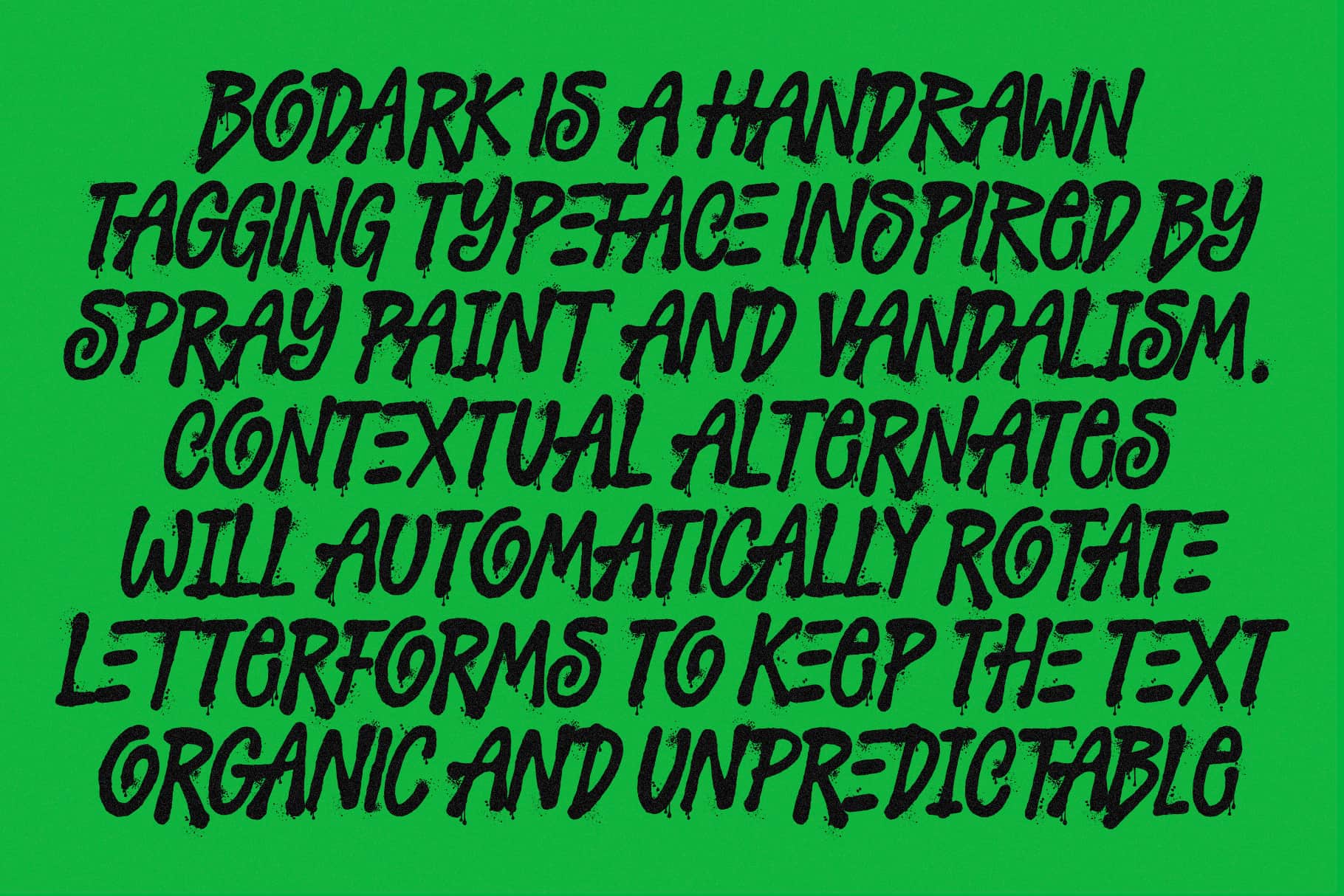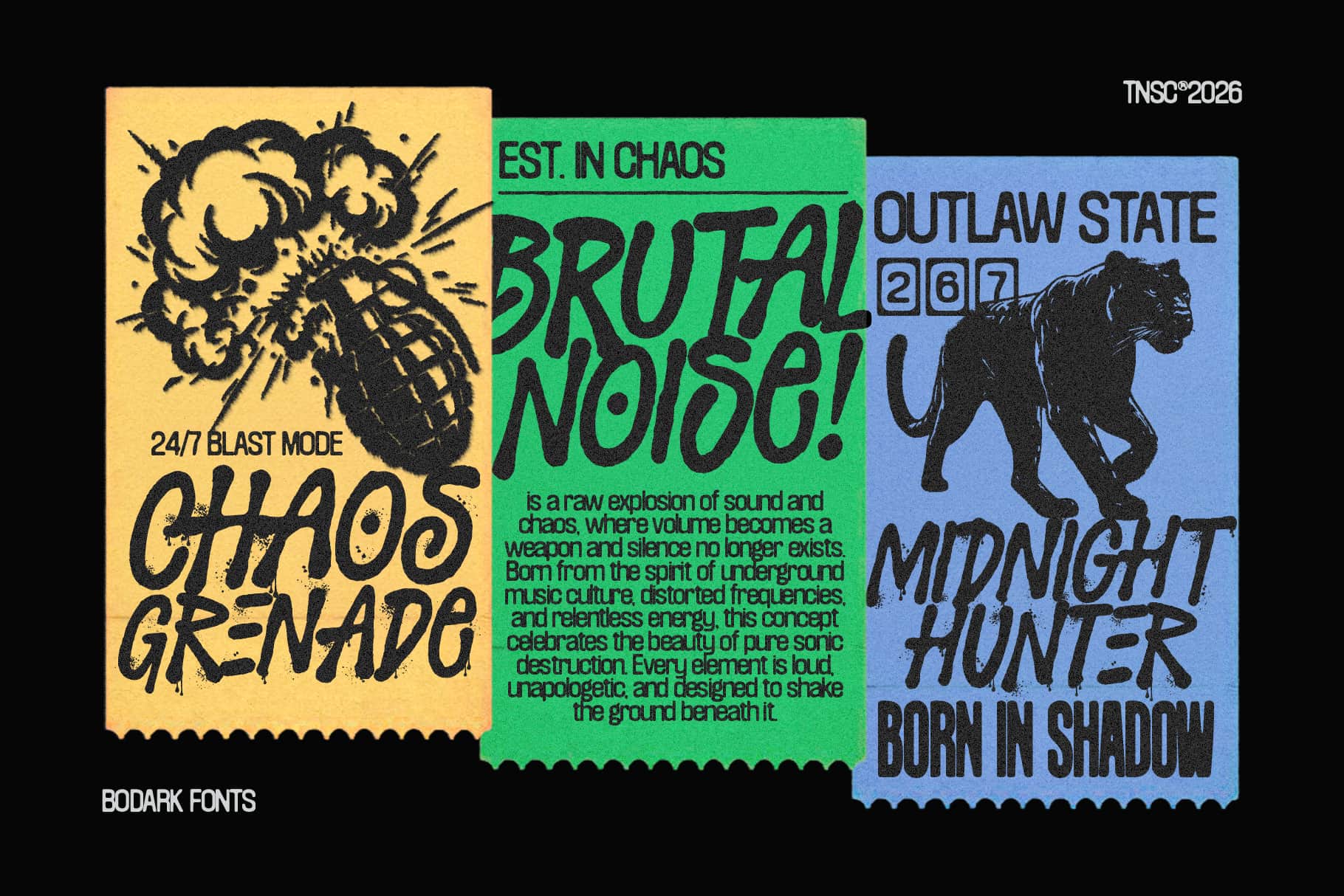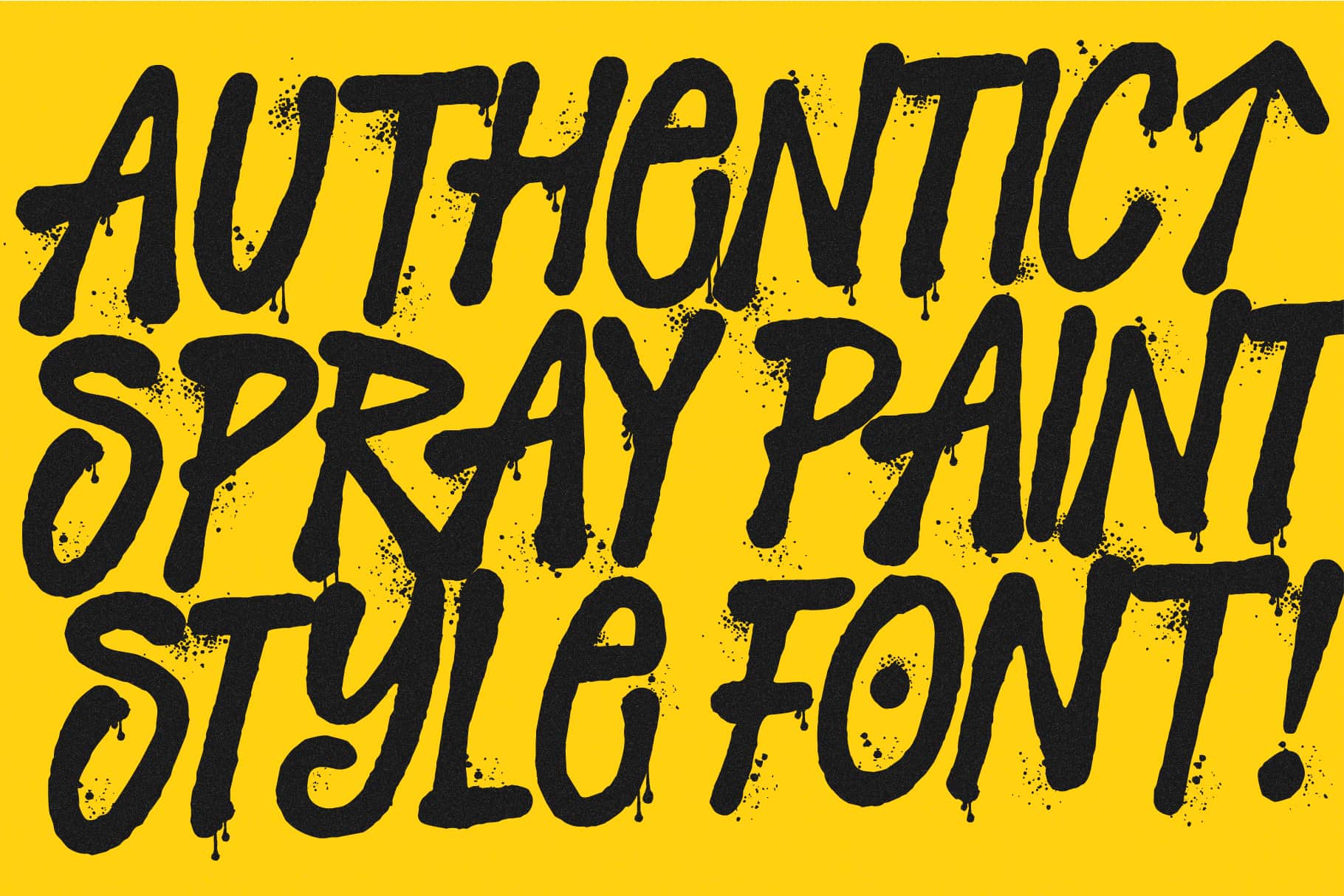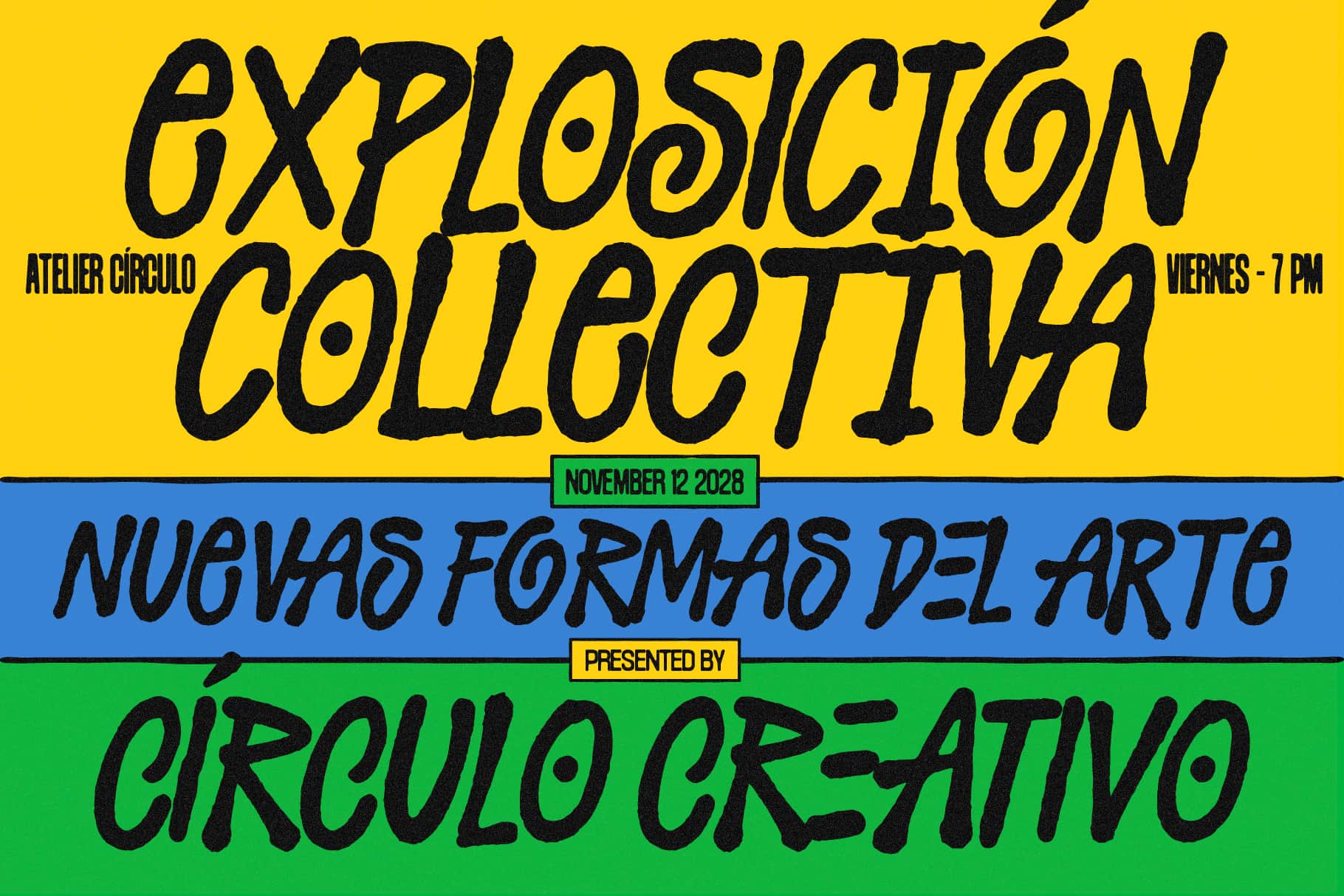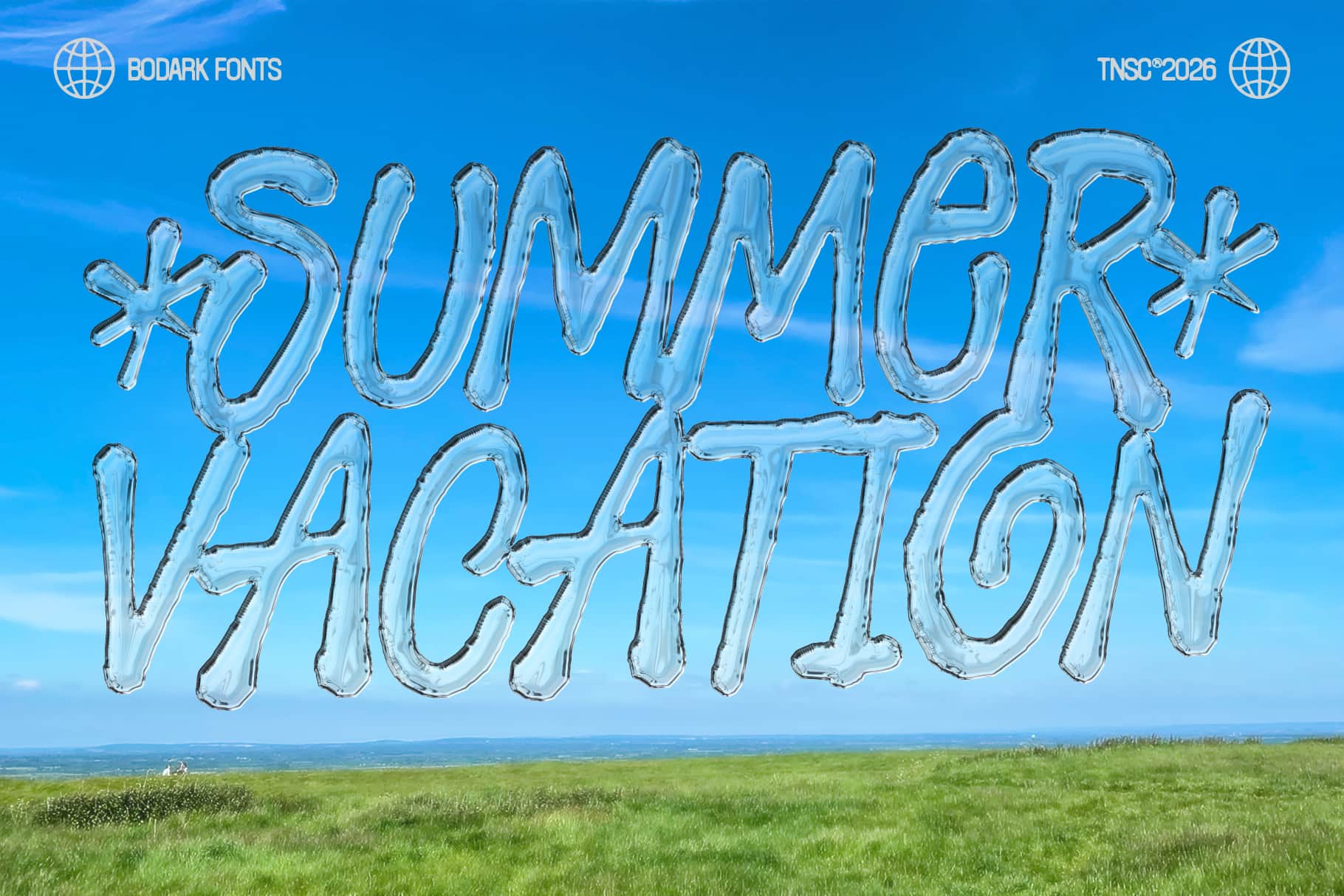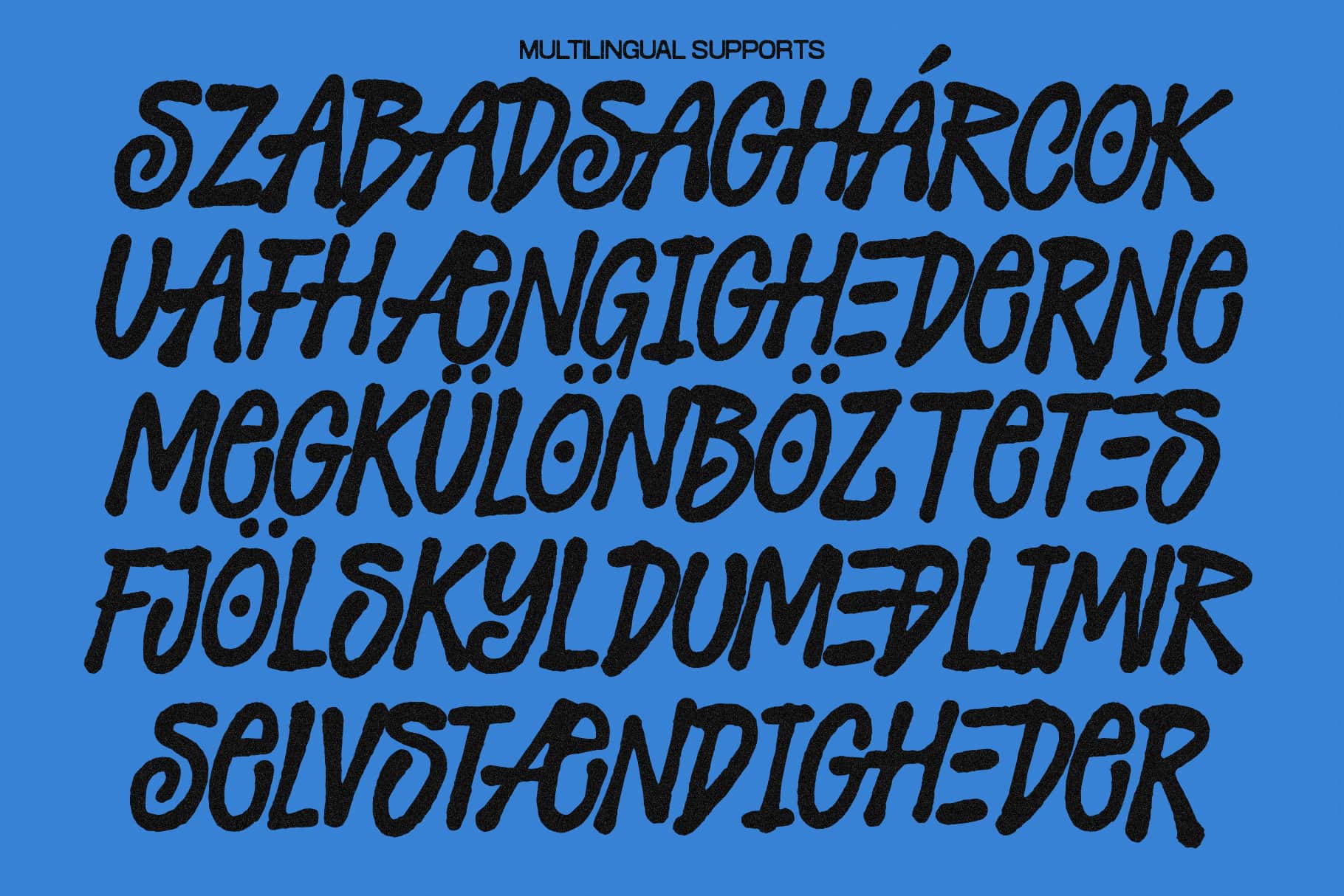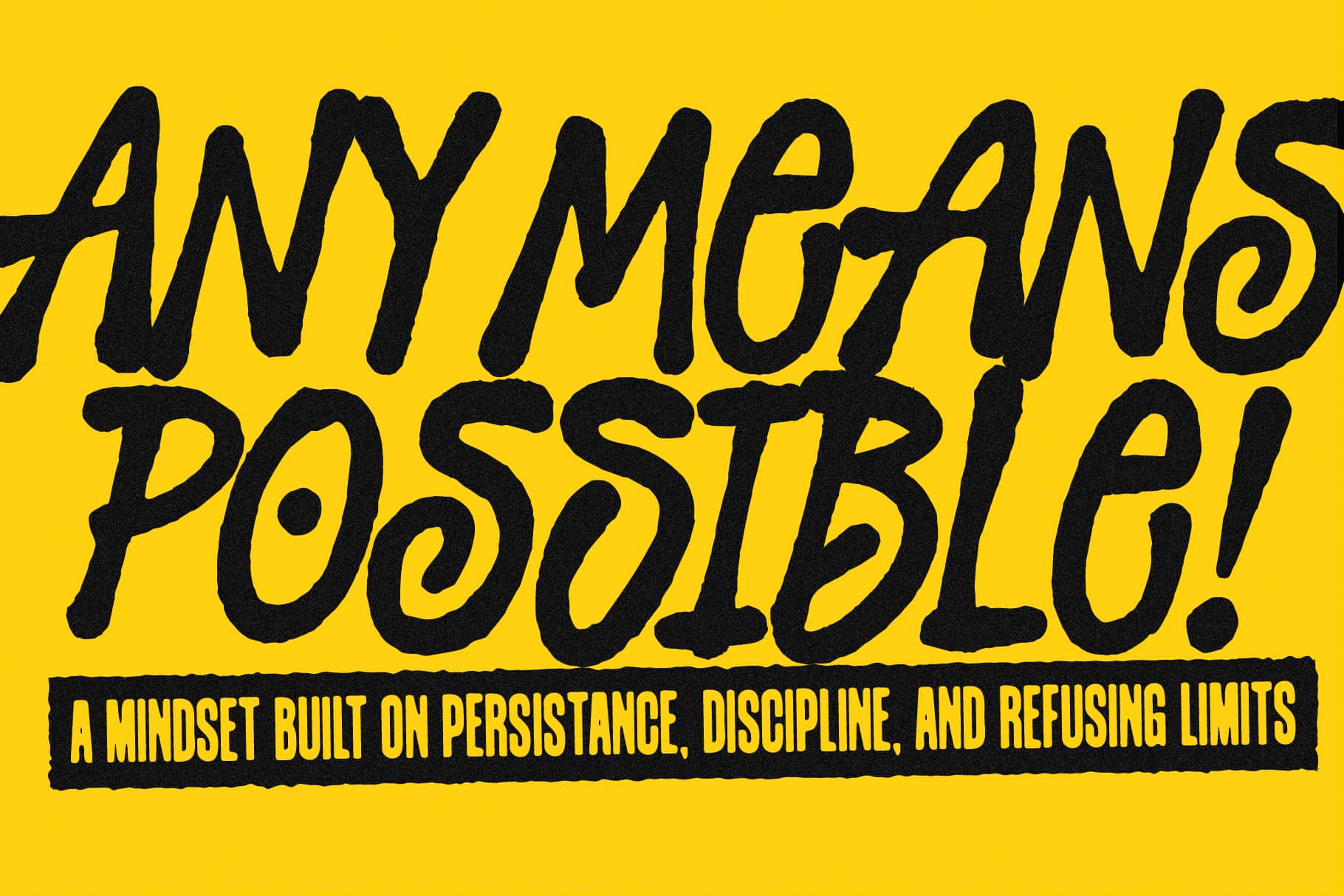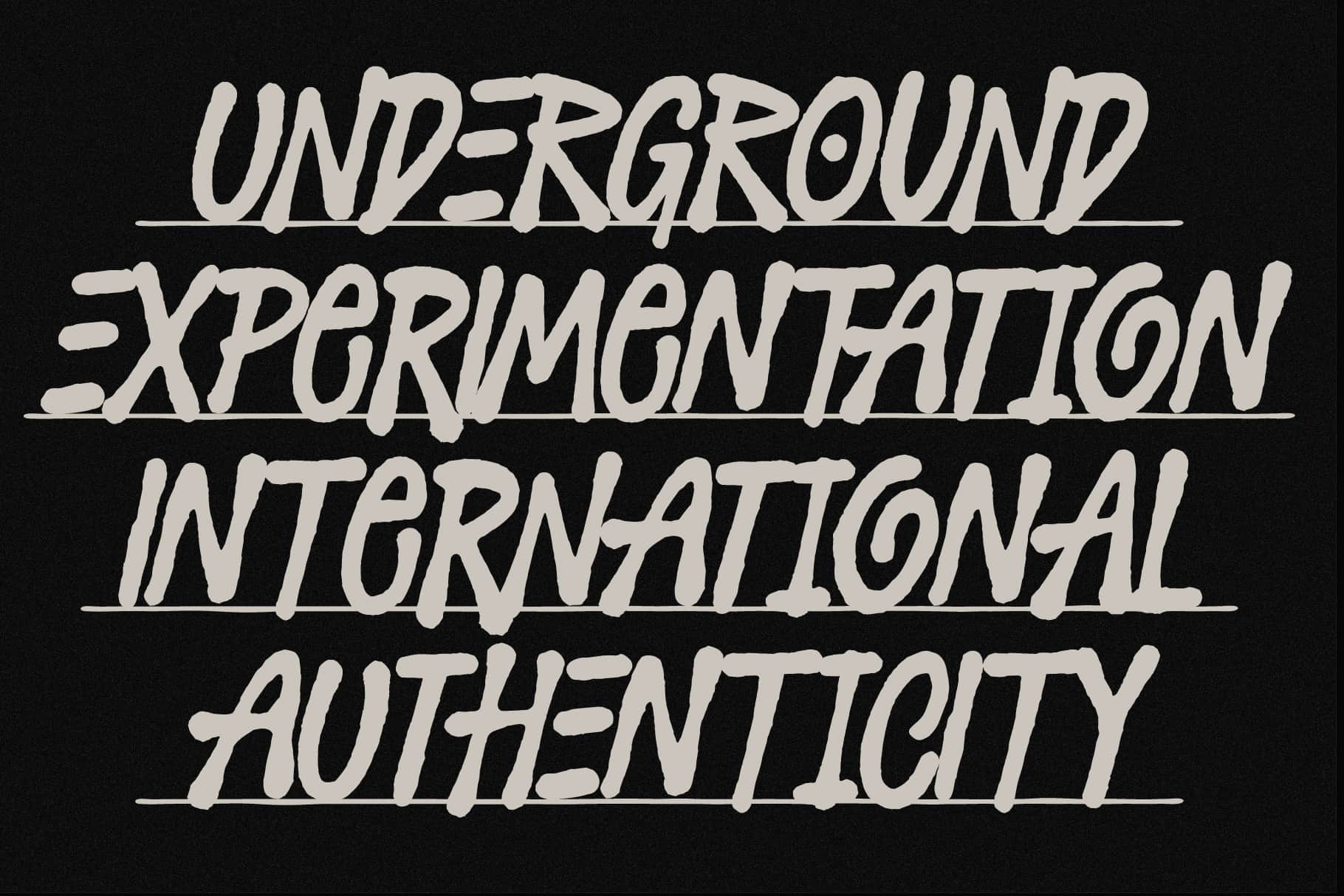
Bodark Typeface TNSC
Bodark is a hand-drawn display font inspired by raw tagging culture, spray paint, and urban vandalism. Built with an organic and expressive flow, each letterform carries a natural unpredictability that brings authentic street energy into your designs — no two characters feel quite the same, and that's exactly the point.
It comes in two styles: Clean and Spray, giving you the choice between controlled edge and raw overspray. Perfect for posters, streetwear branding, album covers, packaging, social media, and bold editorial layouts where personality matters more than polish.